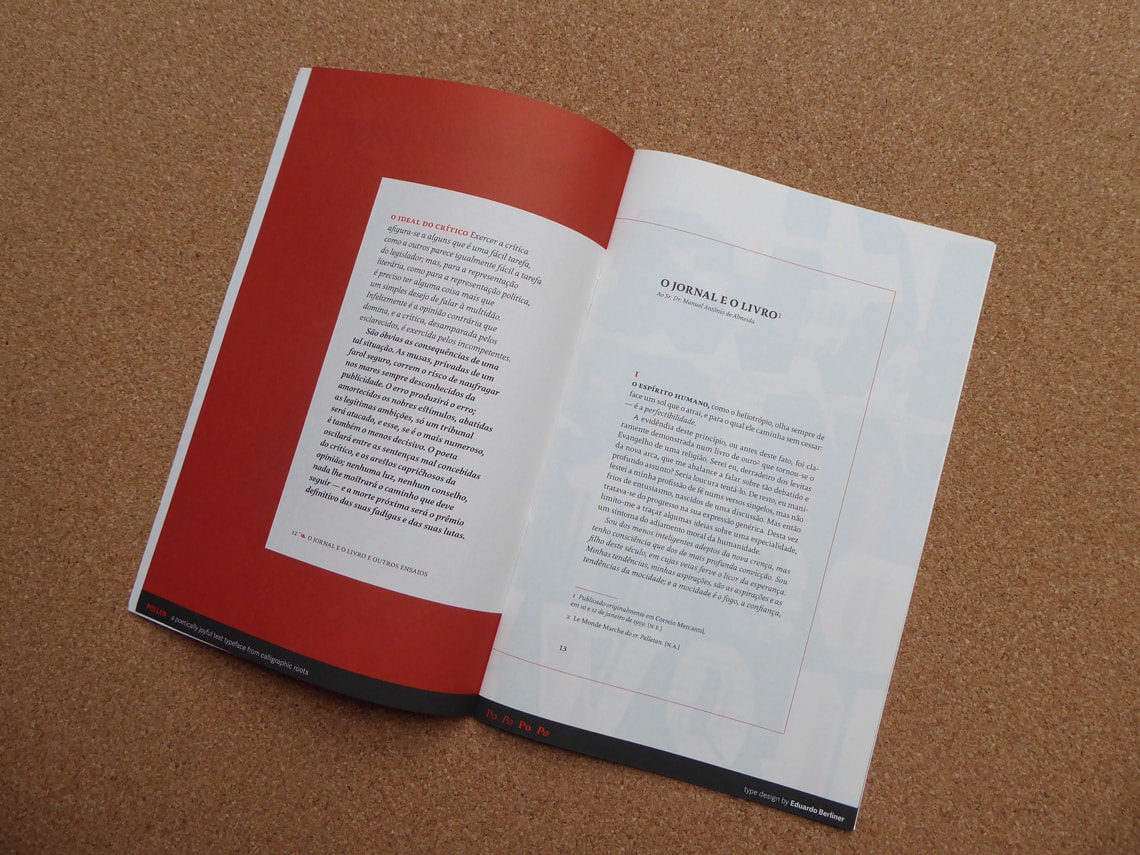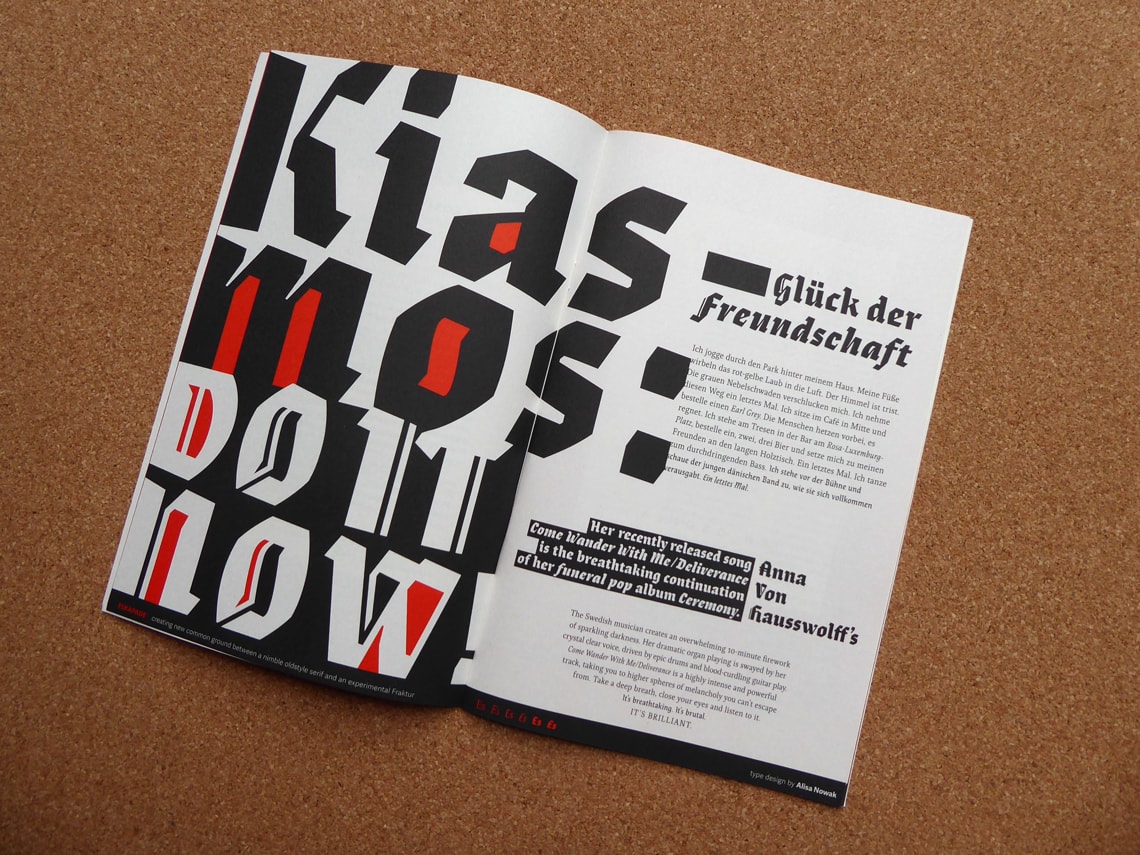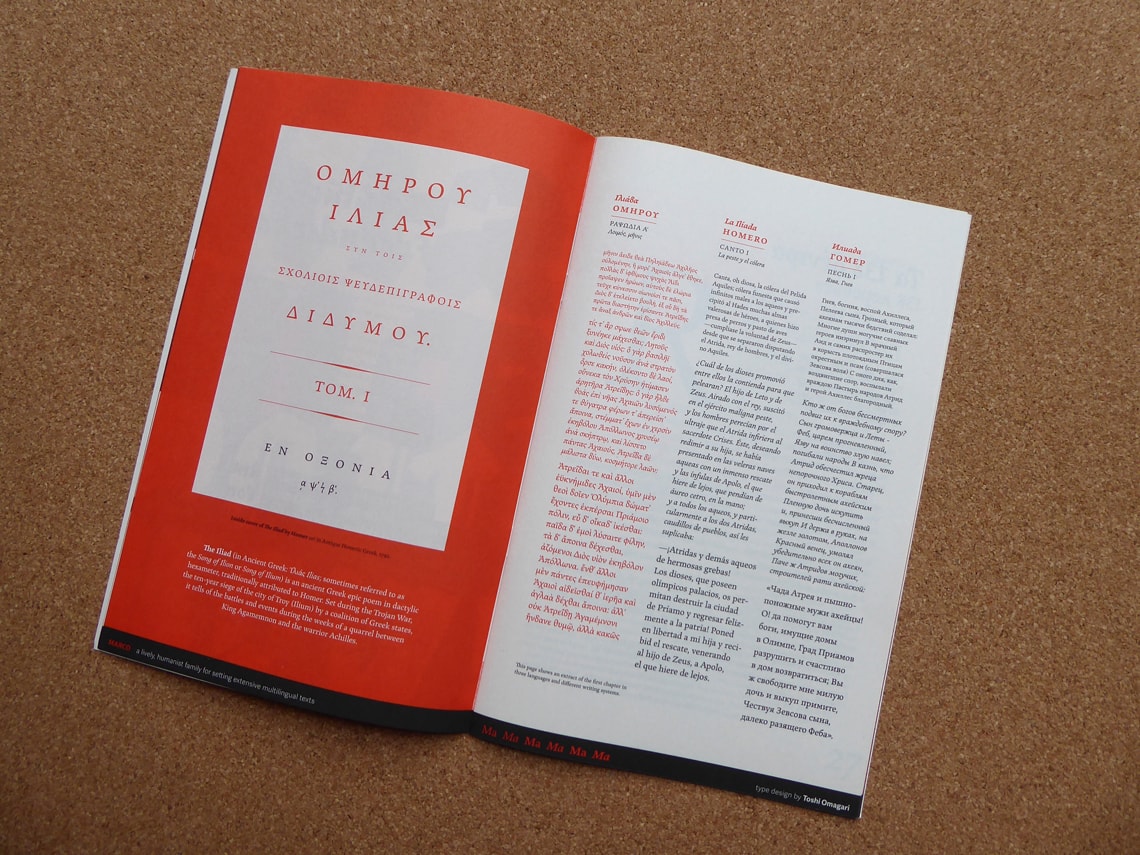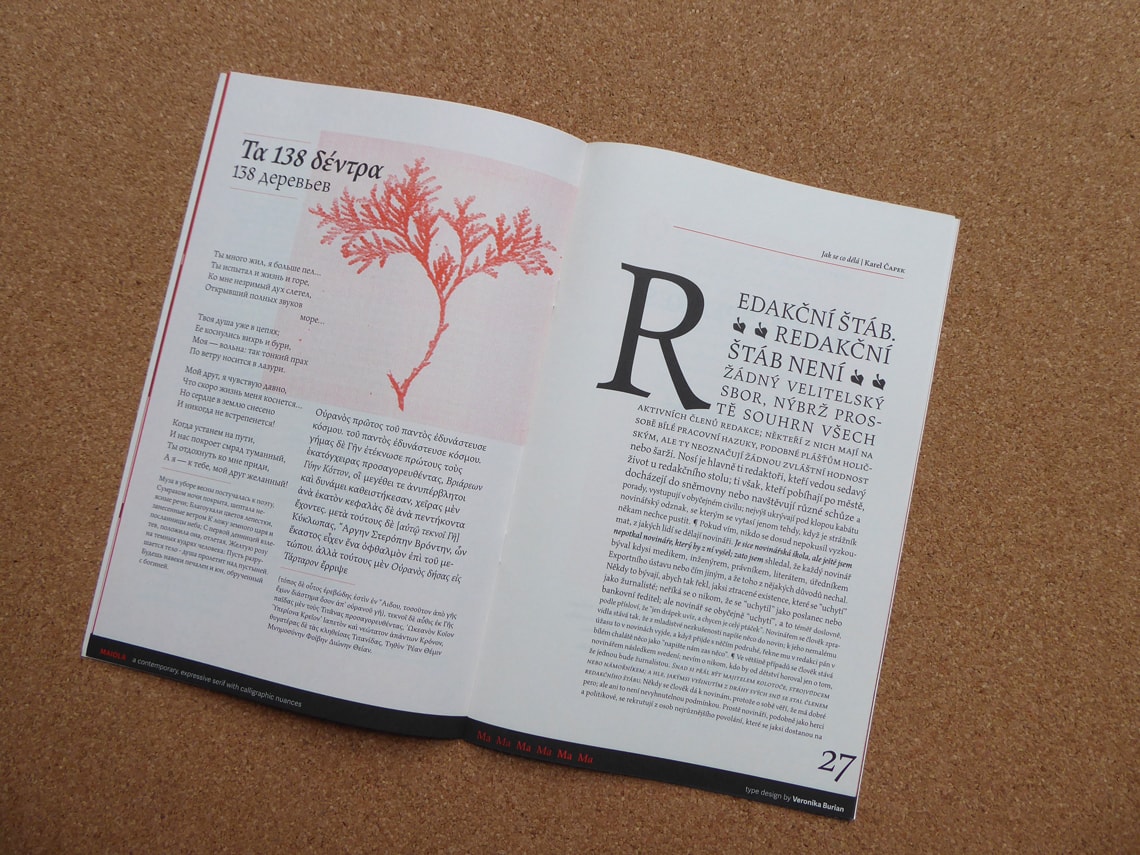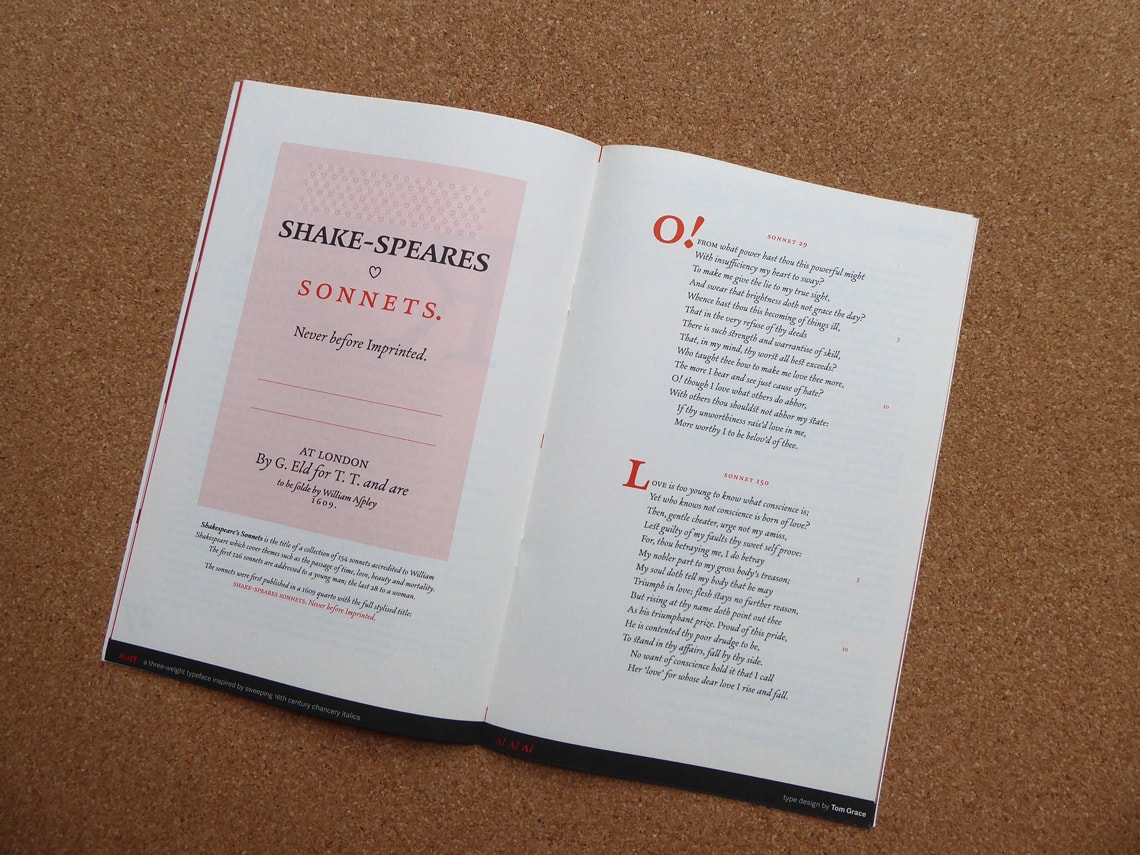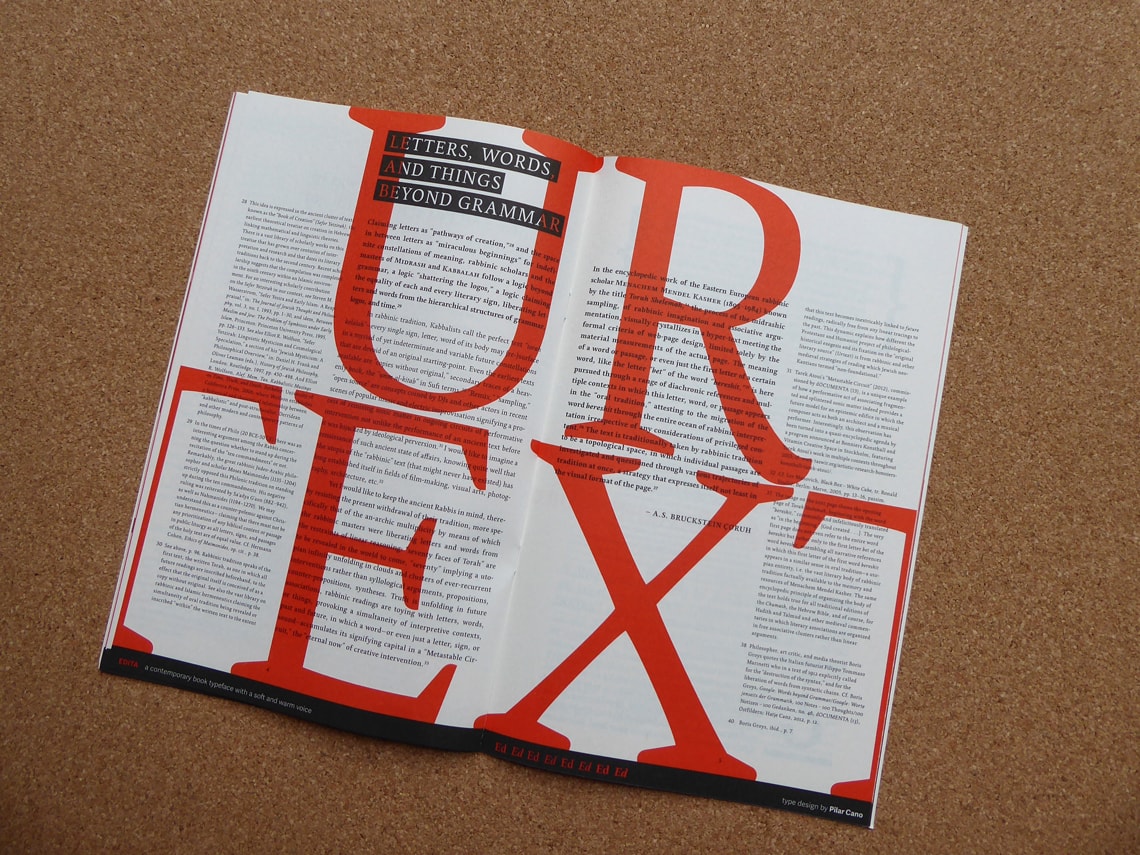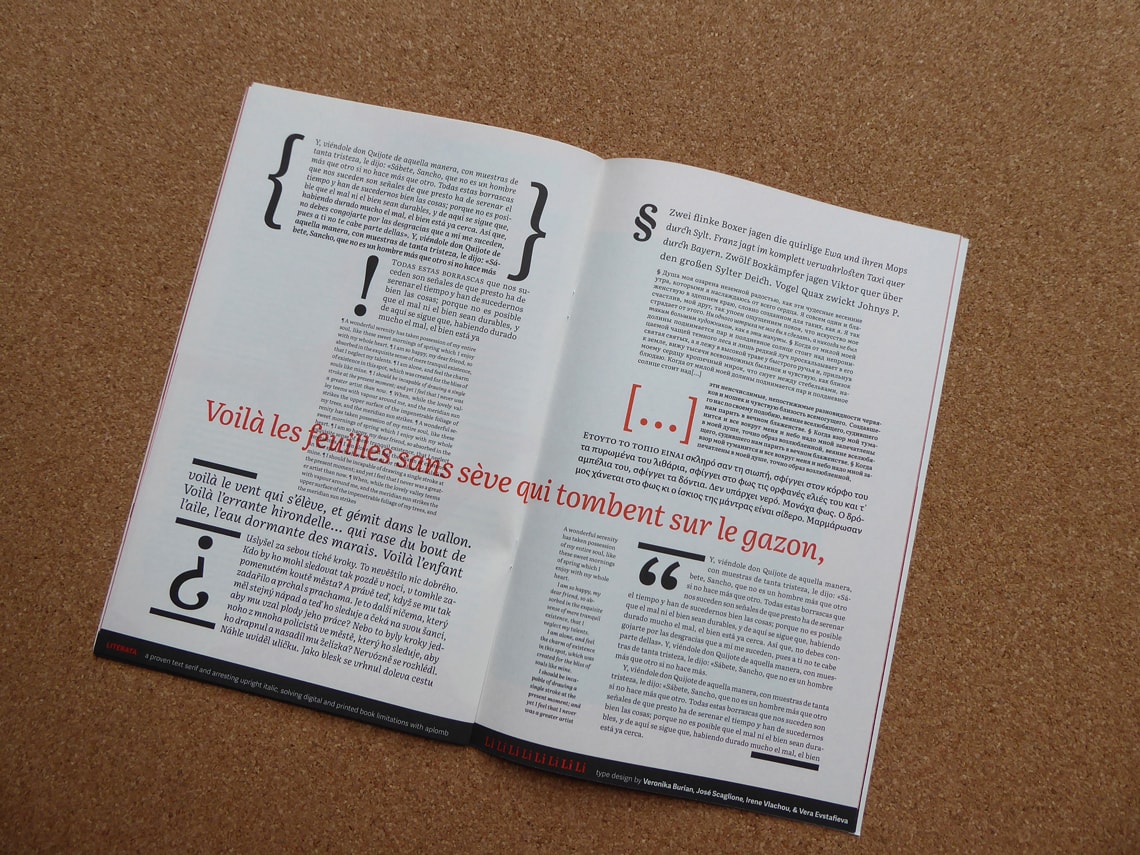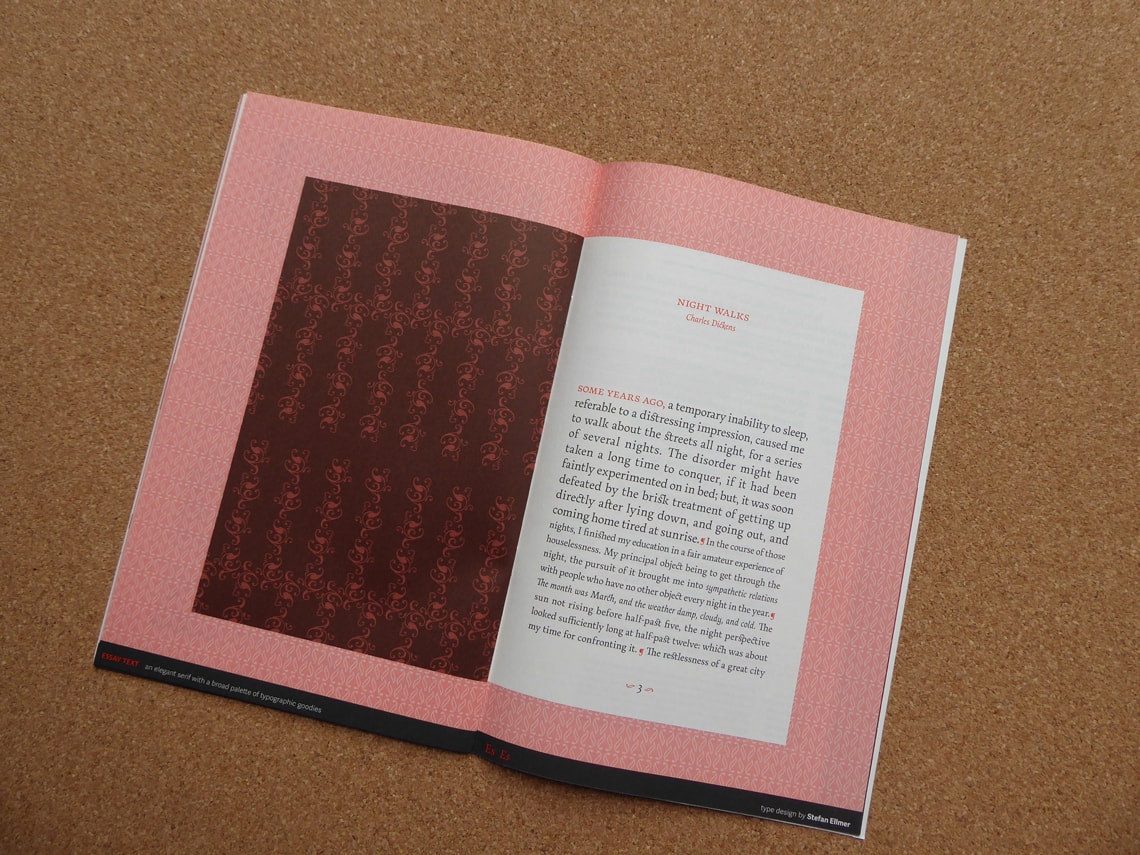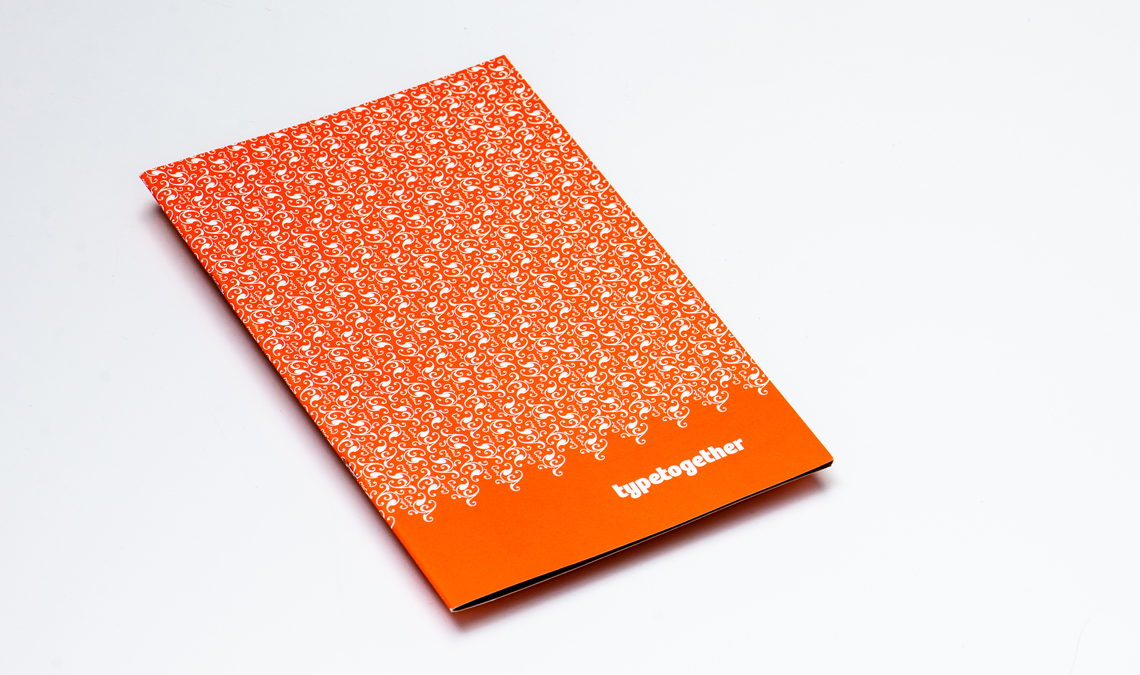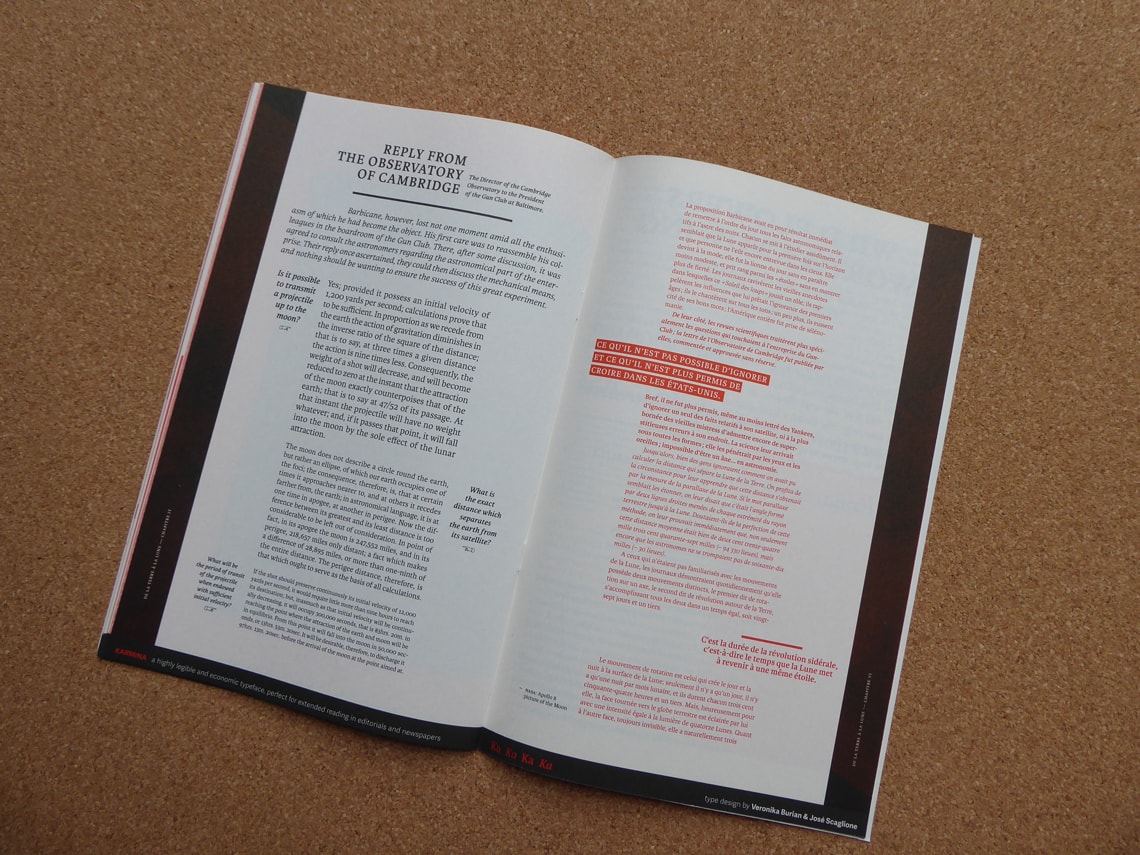
Book Type Catalogue
A beautifully printed, 32-page catalogue featuring TypeTogether’s book typefaces released up through 2016. For this catalogue TypeTogether commissioned four of the finest contemporary book designers to create the interior spreads: Tereza BettinardiVerena GerlachHoracio F. Gorodischer, and Laura Meseguer, along with TypeTogether’s Roxane Gataud, and José Scaglione. Unlike other typical catalogues, the designers have presented the families in an imagined environment unique to their suggestive atmosphere and character.
The brochure was designed and edited by Elena Veguillas, Roxane Gataud, José Scaglione, and Veronika Burian. Copyediting by Joshua Farmer. Cover design pattern by Tereza Bettinardi. Printed in Prague, Czech Republic, at PBtisk under the supervision of Filip Blazek.
Featured typefaces: Alize (Tom Grace), Athelas (Veronika Burian, José Scaglione), Edita (Pilar Cano), Eskapade (Alisa Nowak), Essay Text (Ellmer Stefan), Garalda (Xavier Dupré) Karmina (Veronika Burian, José Scaglione),  Literata (Veronika Burian, José Scaglione, Irene Vlachou, Vera Evstafieva), Maiola (Veronika Burian), Marco (Toshi Omagari), and Pollen (Eduardo Berliner).
The text is set in set in Bely, by Roxane Gataud, and in Ebony and Adelle Sans by Veronika Burian & José Scaglione. Paper is Pamo Classic 80gsm and Munken Print Cream 150gsm for cover.